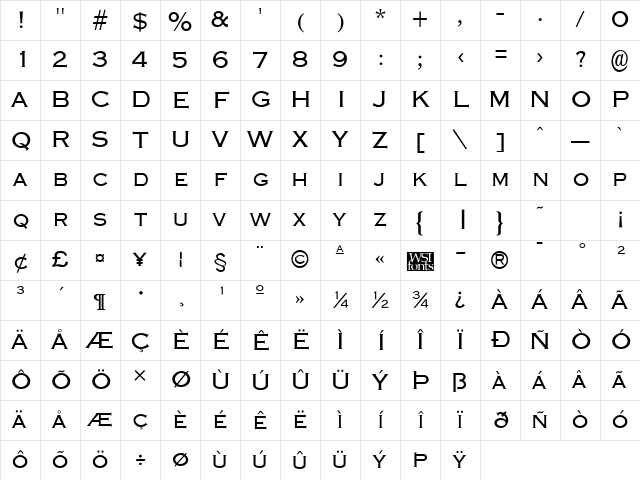
Graverplate Regular
Graverplate Family
Graverplate Regular
Design Context for Graverplate
Graverplate is a composed and adaptable typeface that performs quietly and consistently across a wide range of design contexts.